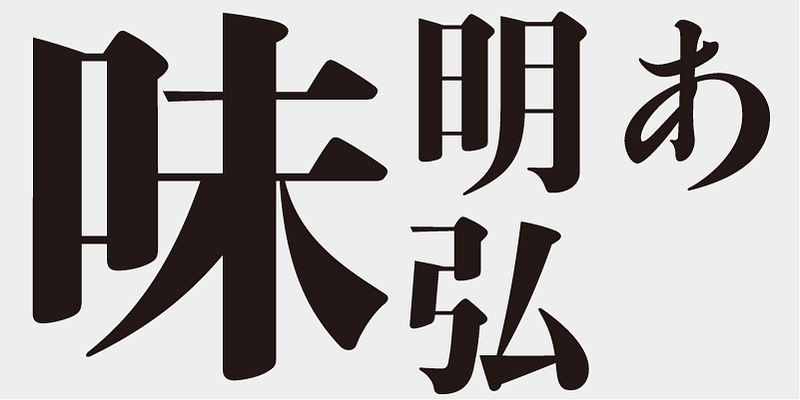
AB Ajimin Ko/EB Font Free Download is a bold and elegant Japanese serif typeface designed for clarity, tradition, and expressive strength. The "EB" in the name stands for Extra Bold, making this version especially well-suited for headlines, editorial titles, signage, and other high-visibility applications where impact and sophistication are needed.
AB Ajimin Ko/EB Font Free Download features classic Mincho-style (明朝体) strokes with high contrast between thick and thin lines, prominent serifs, and beautiful vertical flow—common traits in traditional Japanese type but optimized here for modern readability. The “Ko” (小) variant suggests a slightly more compact or nuanced take, maintaining a refined balance between formality and warmth.
This typeface is ideal for use in publications, cultural projects, branding that emphasizes heritage, or even modern layouts that call for typographic authority rooted in Japanese aesthetics.
Elegant, strong, and deeply rooted in tradition—AB Ajimin Ko/EB brings the grace of classic Japanese typography into bold, contemporary design.